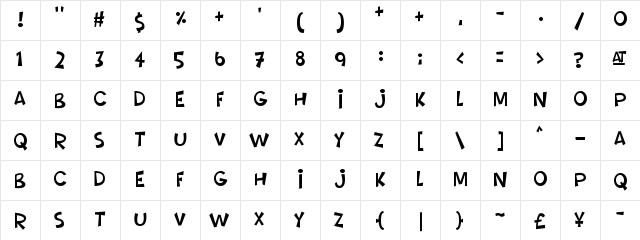
Comictastic Regular Font Preview
Comictastic Regular
Design Context for Comictastic Typeface
Comictastic has an approachable, lighthearted character — its loose, expressive forms are well-suited to children's content, casual branding, and fun-first design.
Font Pairing: Pairs well with a rounded or humanist sans for body copy, maintaining the friendly tone without relying on Comictastic to carry extended reading.
Pro Tip: Avoid using Comictastic for long passages of text — it works best for headlines, labels, and short calls to action.